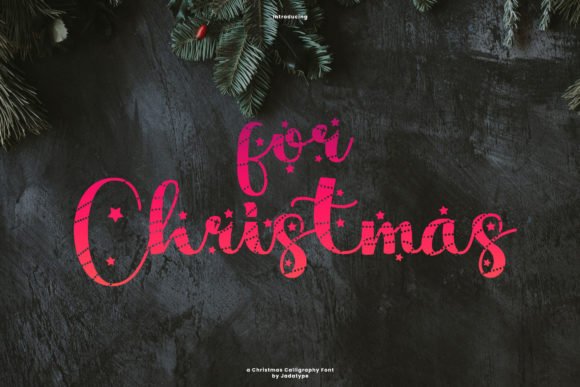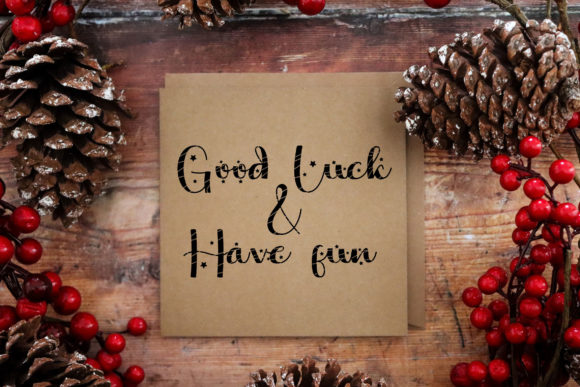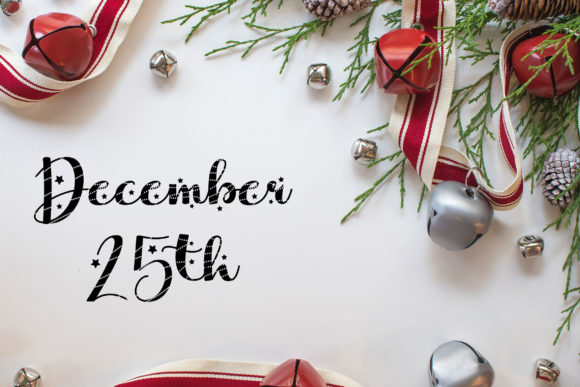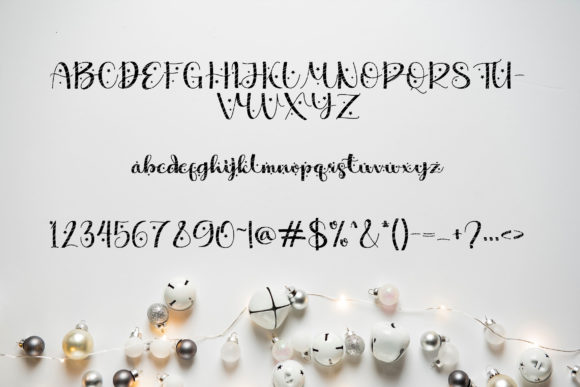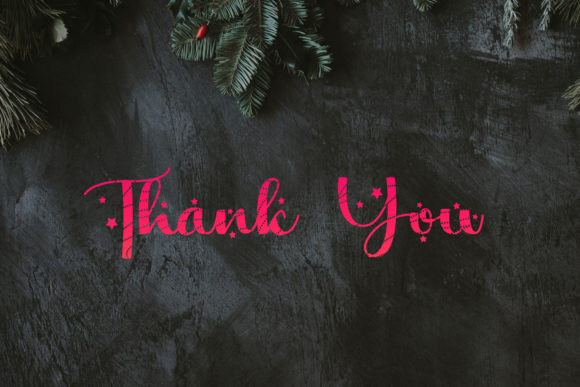
Deck the Halls with Typography: Introducing For Christmas Font
As the holiday season approaches, you can’t help but feel a surge of creativity and excitement. You’ve got your favorite holiday playlist on repeat, hot cocoa in hand, and a blank canvas waiting to be transformed into a winter wonderland. This is the moment when the magic happens, and your imagination knows no bounds.
For Christmas Font is here to help you bring your festive visions to life. This enchanting decorative font is specifically designed to elevate any Christmas project, from invitations and greeting cards to gifts, decorations, and accessories. With For Christmas Font, the possibilities are endless, and the only limit is your imagination.
As a designer, you know that the right font can make all the difference in capturing the essence of the season. For Christmas Font is a valuable addition to your toolkit, offering a unique and festive touch that’s sure to impress. So why settle for ordinary when you can have extraordinary? Let For Christmas Font be your guide to creating holiday magic.
For Christmas Font Key Features
- Font style: A festive, handwritten script font designed for Christmas and holiday-themed applications.
- Unique characteristics: Features a distinctive, handwritten feel with ornaments and flourishes, adding a touch of whimsy and festivity to designs.
- Language support: Supports a wide range of languages, including Latin, Cyrillic, and Greek alphabets, making it a versatile choice for international designs.
For Christmas Font Review
Overall, I think the “For Christmas Font” is a great addition to any holiday design project ✨. The font’s festive feel and playful characters make it perfect for Christmas cards, gift tags, or even festive social media posts.
- The font’s bold and colorful design makes it stand out and grab attention ✨.
- The font is highly customizable, allowing you to adjust the size, color, and even the style of the text to fit your design needs.
- The font includes a wide range of characters, including uppercase and lowercase letters, numbers, and special characters.
- The font may not be suitable for all types of holiday designs, especially those that require a more subtle or elegant look ⚠️.
- The font may not be compatible with all design software or platforms, so be sure to check compatibility before using it.
- The font is quite large, so it may not be suitable for small designs or text-heavy projects.
Overall, I think the “For Christmas Font” is a great choice for anyone looking to add a festive touch to their holiday designs. With a little creativity and experimentation, you can create some truly amazing designs with this font ✨.
The “For Christmas Font” is ideal for:
Creating festive holiday invitations, cards, and posters.
Designing Christmas-themed social media graphics and ads.
Adding a touch of holiday cheer to your website or blog.
Creating custom Christmas gift tags and labels.